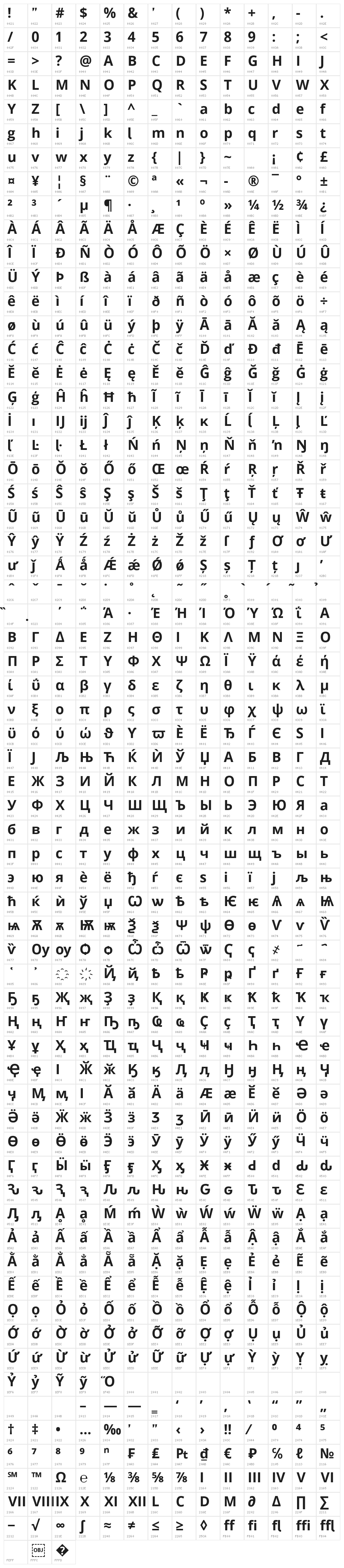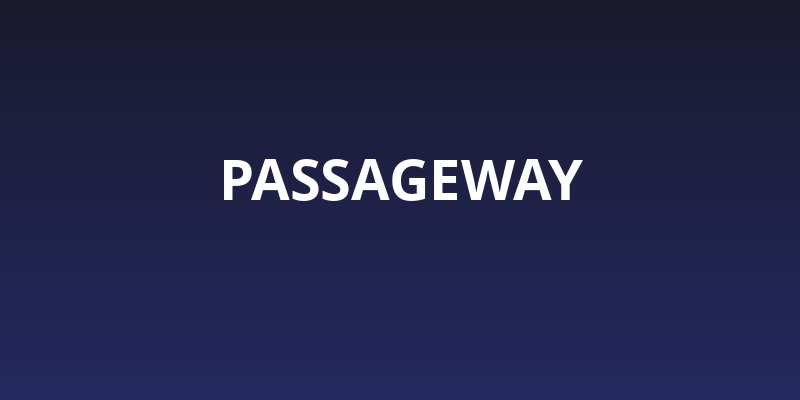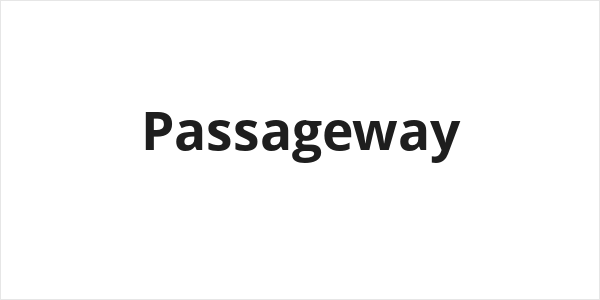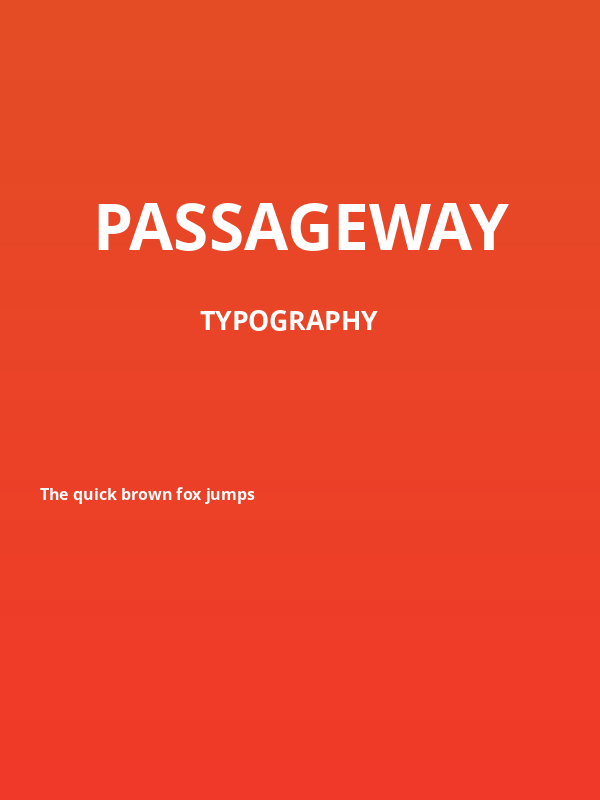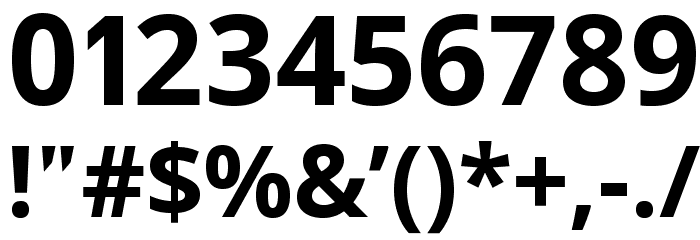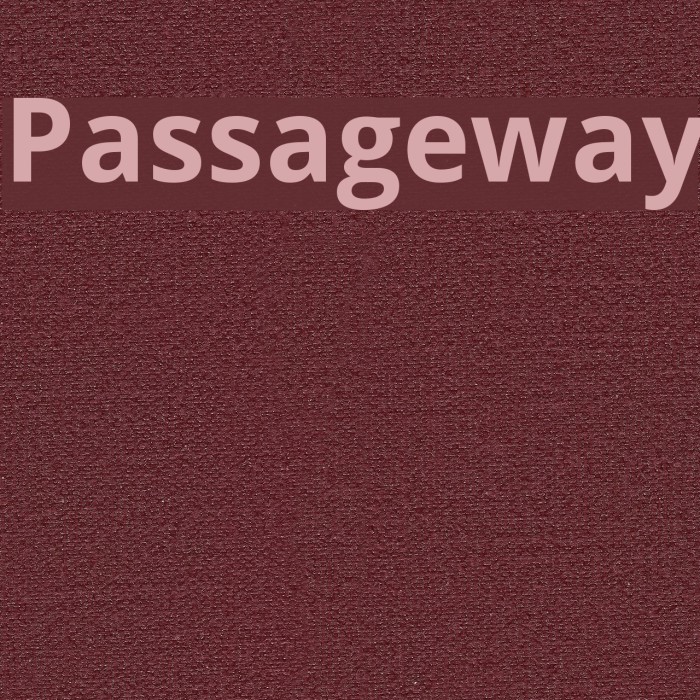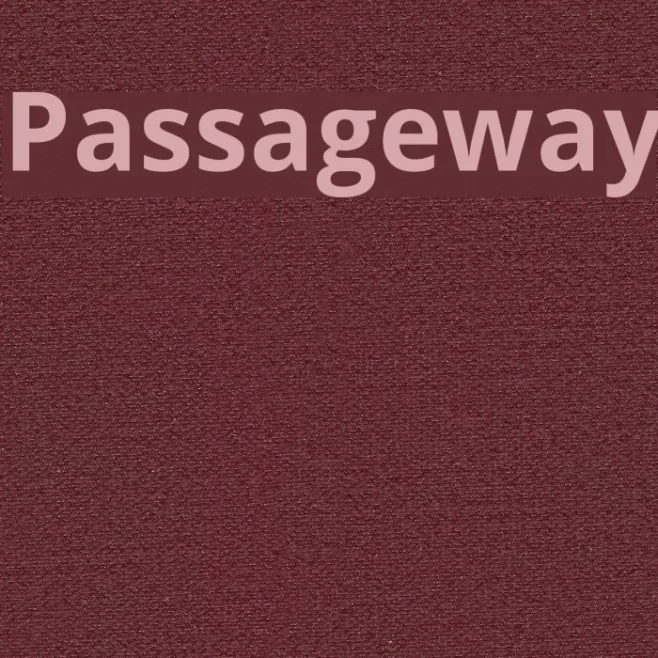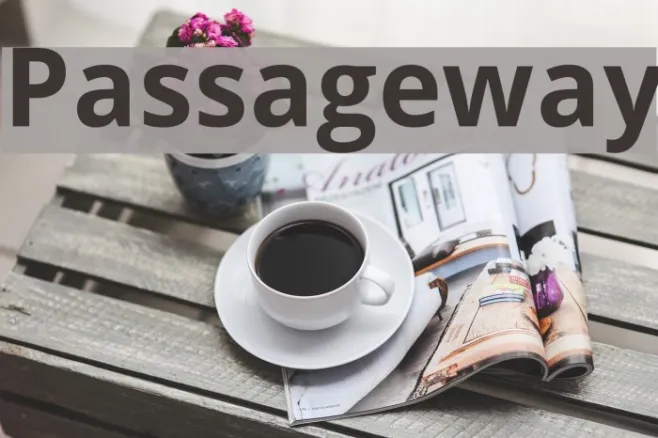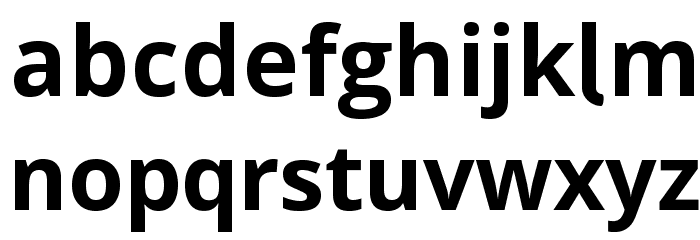
Passageway Font
Passageway Description
This font features a bold and modern sans-serif style with clean lines and a strong presence. The characters are evenly spaced, providing excellent readability. The uppercase letters are slightly taller than average, giving a commanding appearance, while the lowercase letters maintain a consistent height, ensuring uniformity. The numerals are clear and distinct, making them easy to read. Special characters are well-defined, adding versatility to the font. Its simplicity and clarity make it suitable for a wide range of applications, from digital to print media.
| Proposed Projects | Ideal for branding, advertising, headlines, and digital content where clarity and impact are essential. |